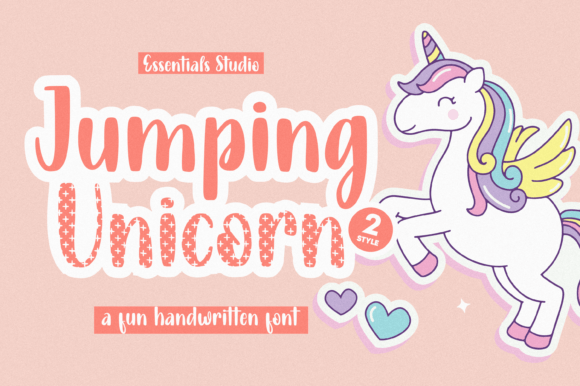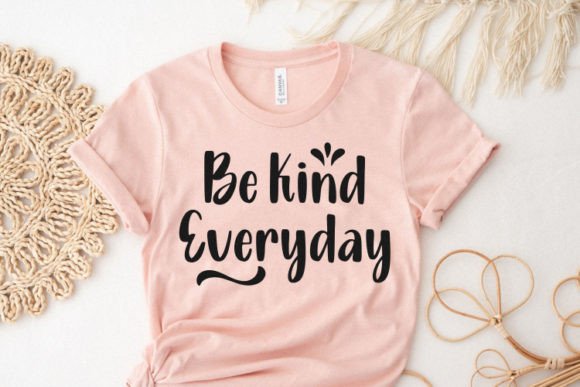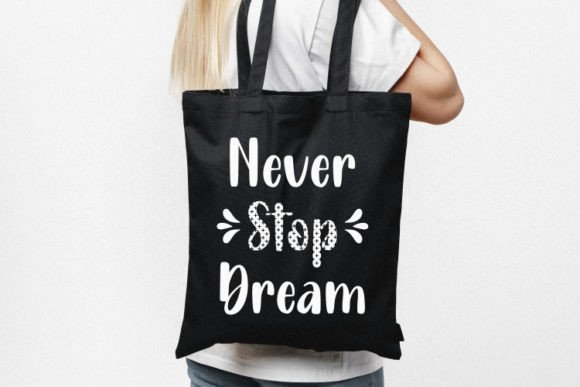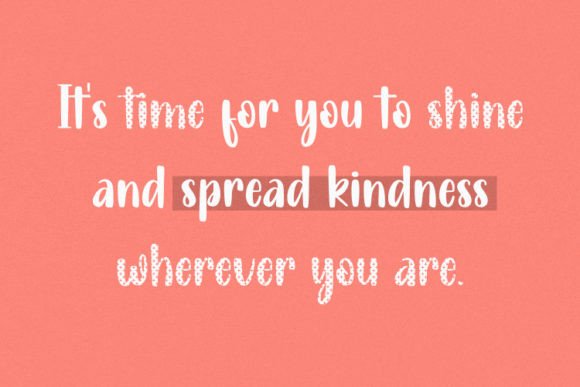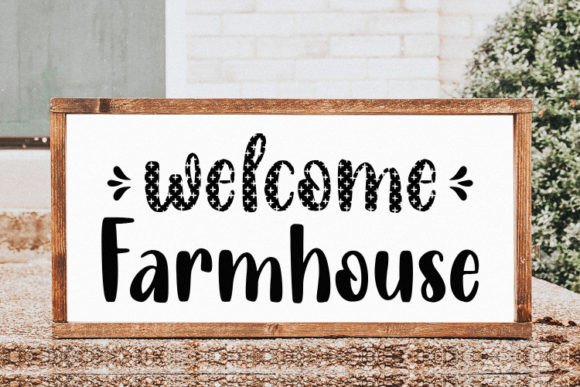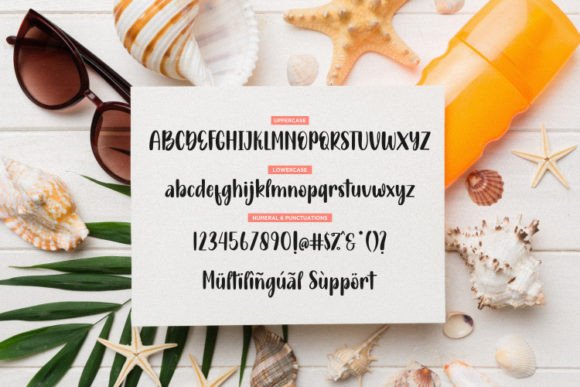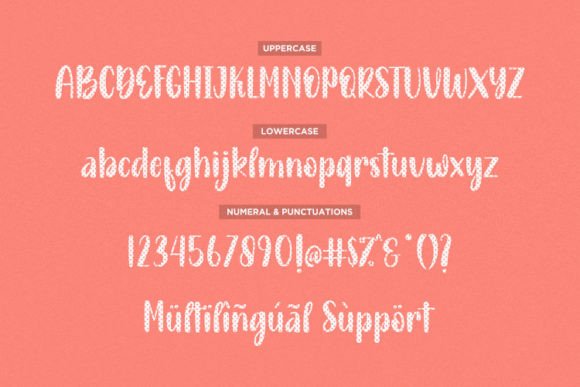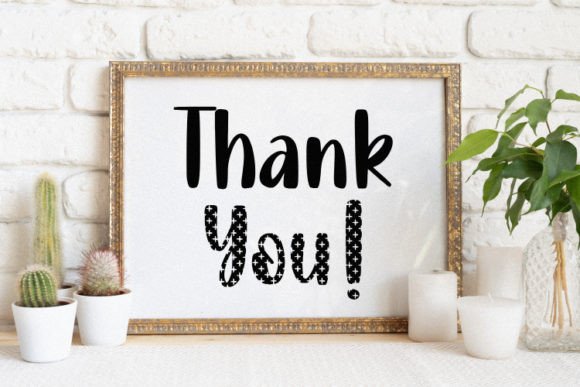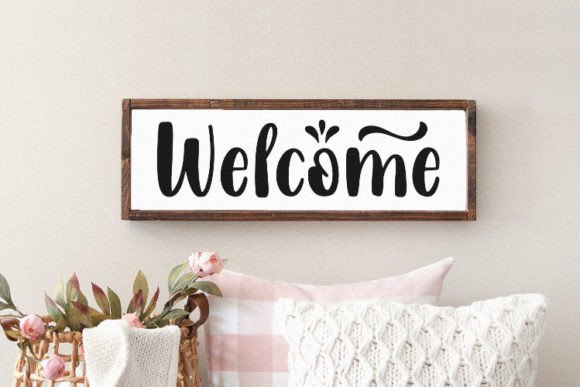
Jumping Unicorn Font
About Jumping Unicorn Font
“Jumping Unicorn” is a delightful and whimsical handwritten font that exudes a playful and friendly vibe, making it a fantastic choice for a wide range of design projects. With its charming and quirky character, this font is sure to add a touch of whimsy to your creative endeavors.
The appeal of “Jumping Unicorn” lies in its ability to bring a sense of joy and lightheartedness to your designs. The font’s letters are crafted with a playful touch, making it a suitable option for infusing a sense of fun and uniqueness into your projects. “Jumping Unicorn” has a cheerful and whimsical quality that can instantly brighten up any design.
This font is incredibly versatile and can be used effectively across a variety of applications. Whether you’re creating invitations, greeting cards, posters, children’s books, branding materials, or any other design that calls for a friendly and playful touch, “Jumping Unicorn” is up to the task.
Additionally, “Jumping Unicorn” is perfect for digital applications such as social media graphics, website headers, and more, where its quirky and whimsical style can engage and captivate your audience.
Incorporating “Jumping Unicorn” into your design projects allows you to infuse a sense of cheerfulness and whimsy into your typography and overall design. Its playful and friendly character makes it an excellent choice for adding a touch of uniqueness and charm to your next creative endeavor, ensuring that it stands out and brings a smile to your audience’s face. Embrace the whimsy of “Jumping Unicorn” in your next project, and let it transform your designs into delightful and unforgettable creations.